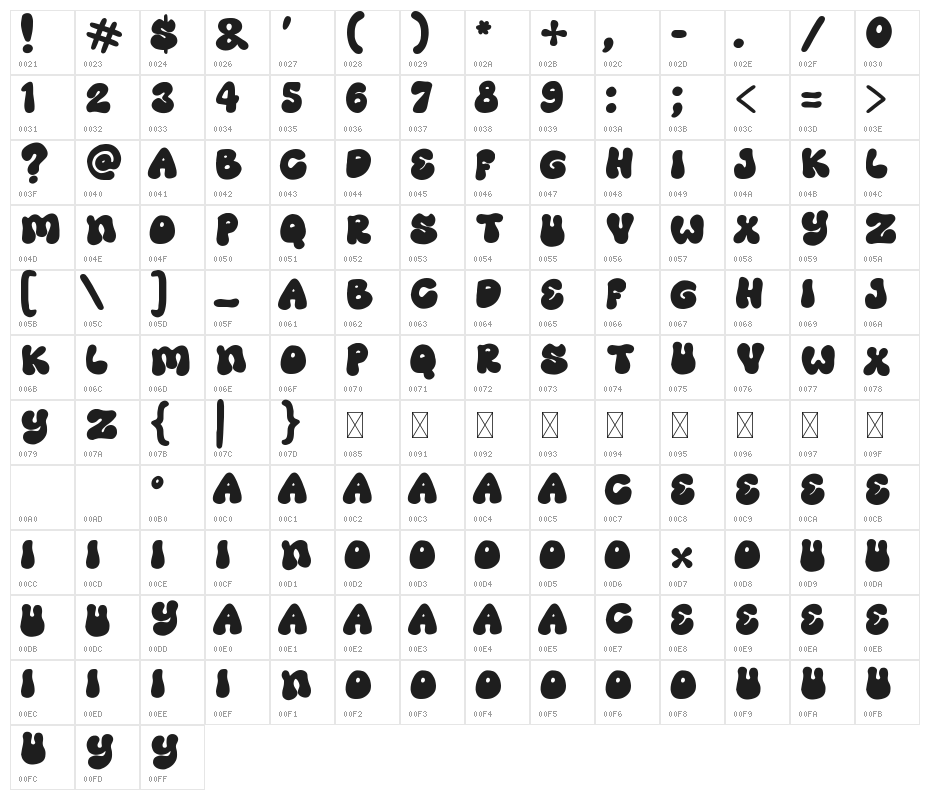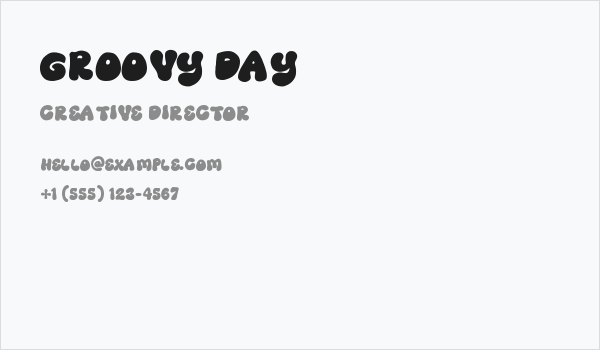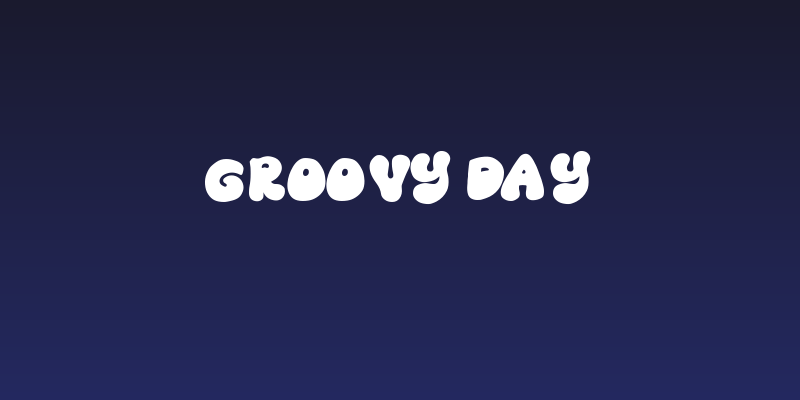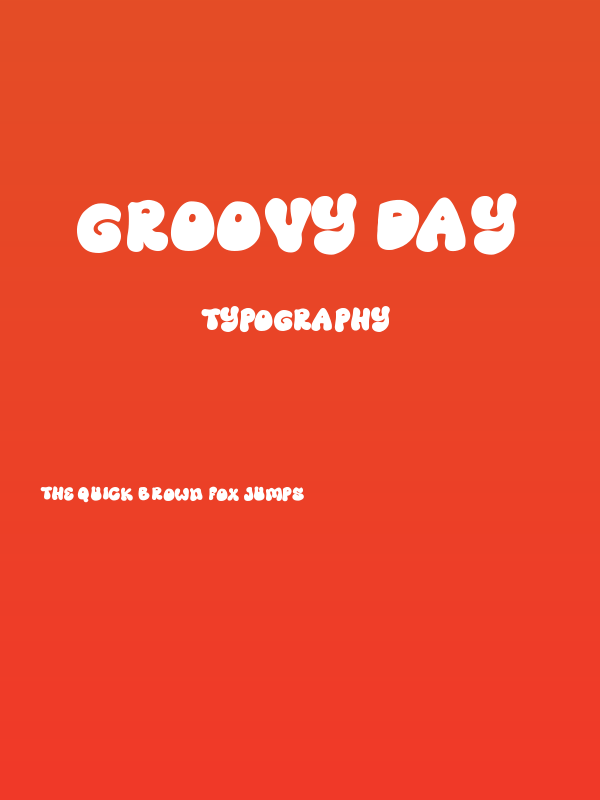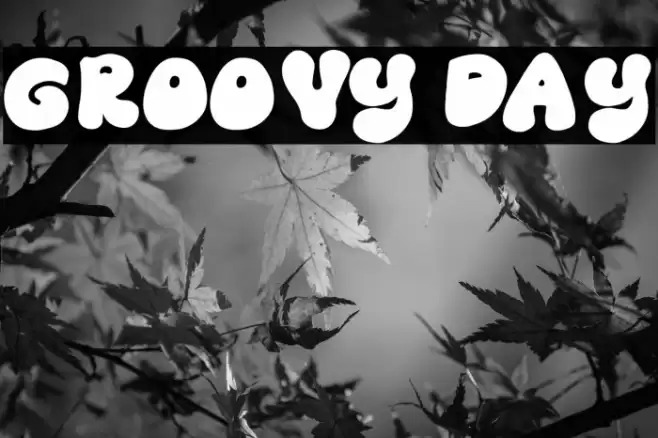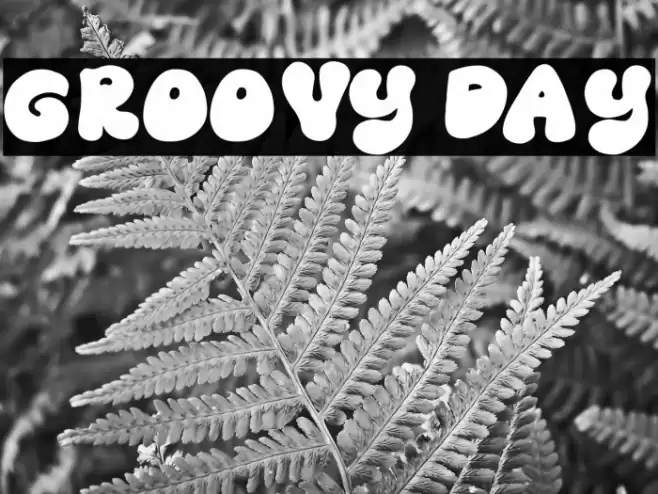
Groovy Day Font
Groovy Day Description
This font features a bold, playful design with thick, rounded characters that exude a sense of fun and whimsy. The letters are heavily weighted, giving them a substantial presence on the page. The overall style is reminiscent of retro and psychedelic aesthetics, with a bubbly and exaggerated form that captures attention. Each character is distinct, with a consistent thickness throughout, contributing to a cohesive look. The font is ideal for projects that require a lively and energetic feel, such as event posters, children's book covers, or branding for creative industries.
| Overall Style | Retro, Playful |
| Proposed Projects | Perfect for event posters, children's book covers, and creative branding. |